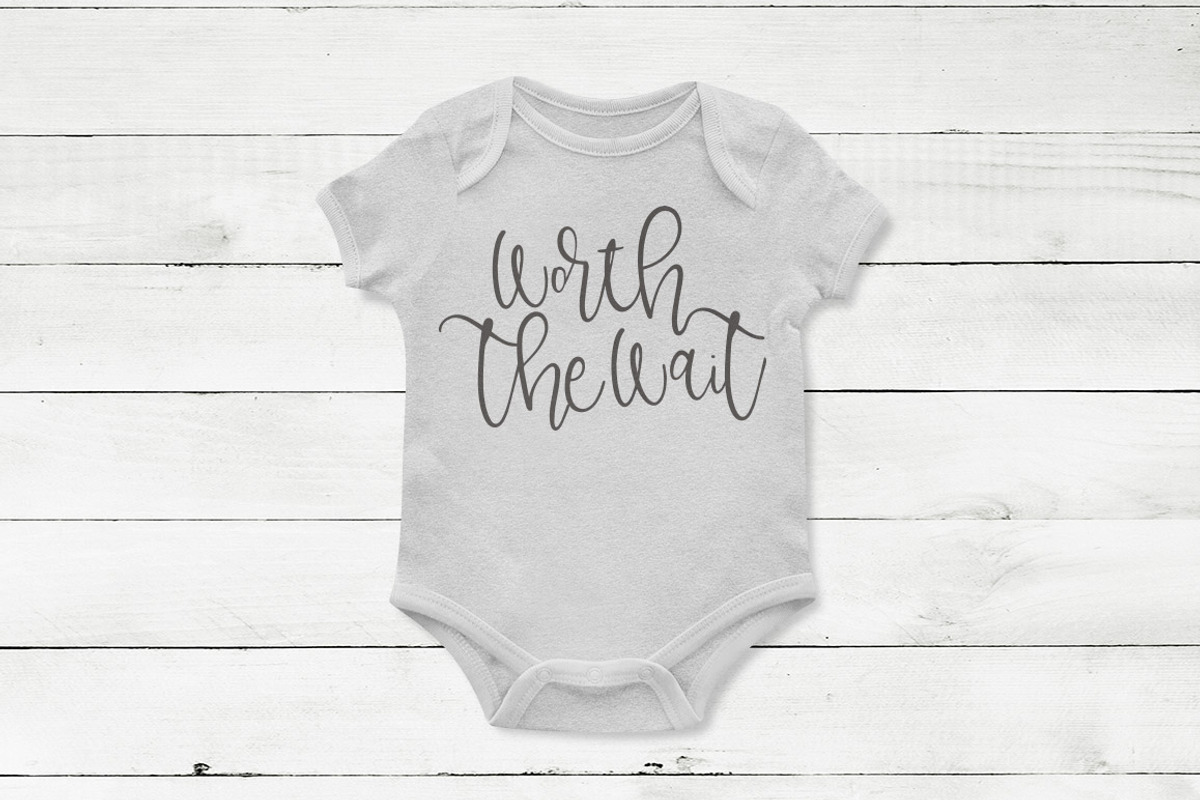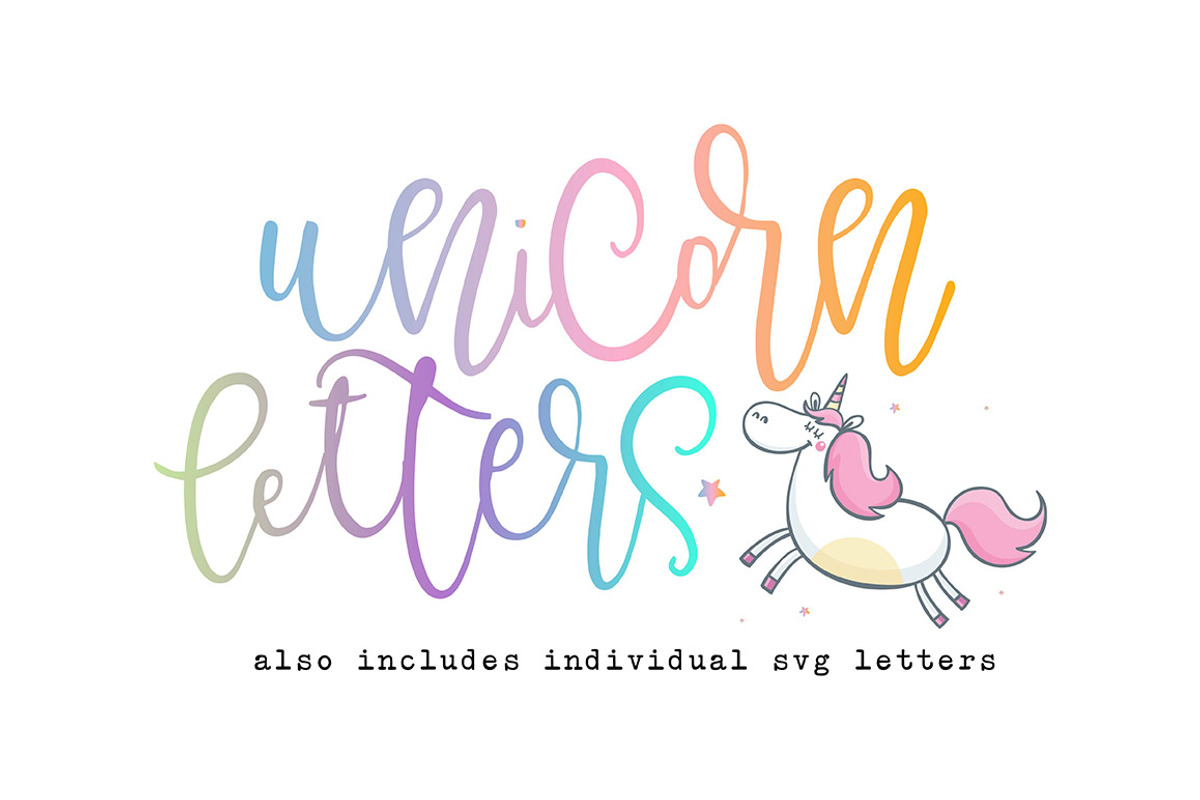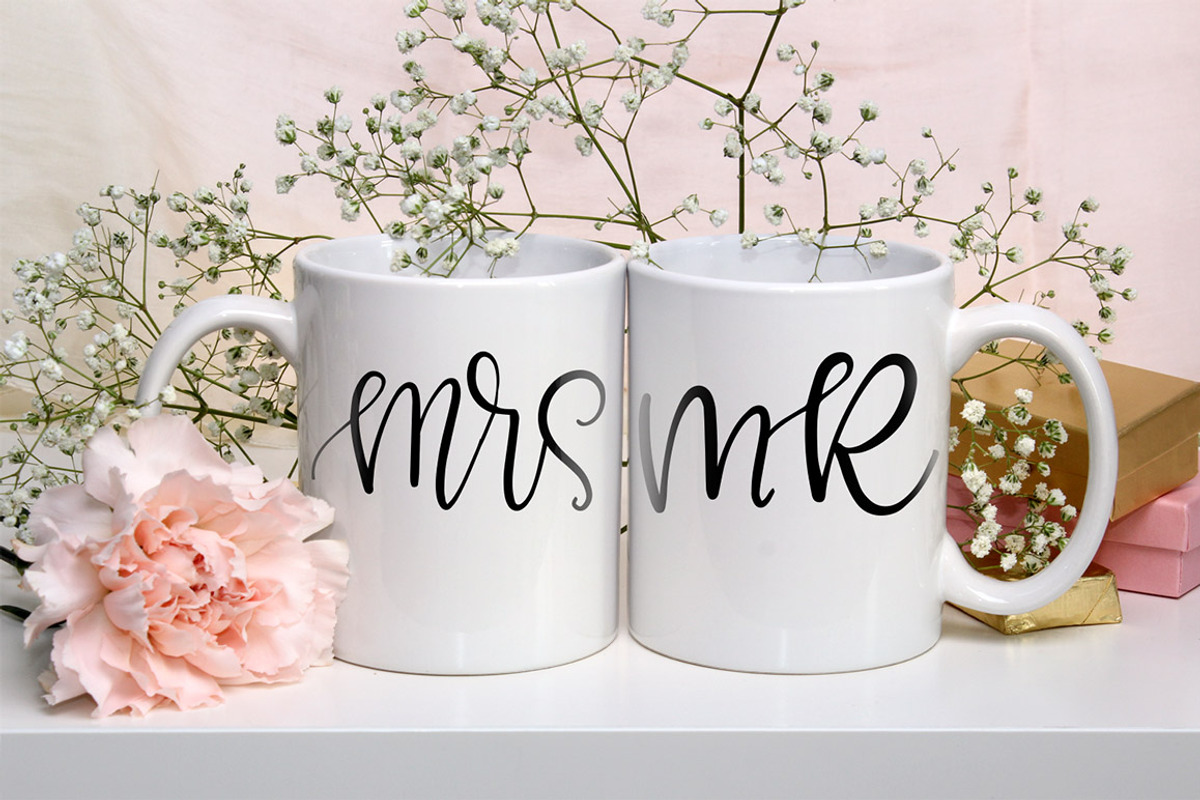
Unicorn Letters Font & SVG Letters
Created with crafters in mind, Unicorn Letters is just that : an extra bouncy, extra fancy letter font. The download also includes individual SVG letters for infinite combos. There is no punctuation or numbers with this font, as its main focus are the individual letters!